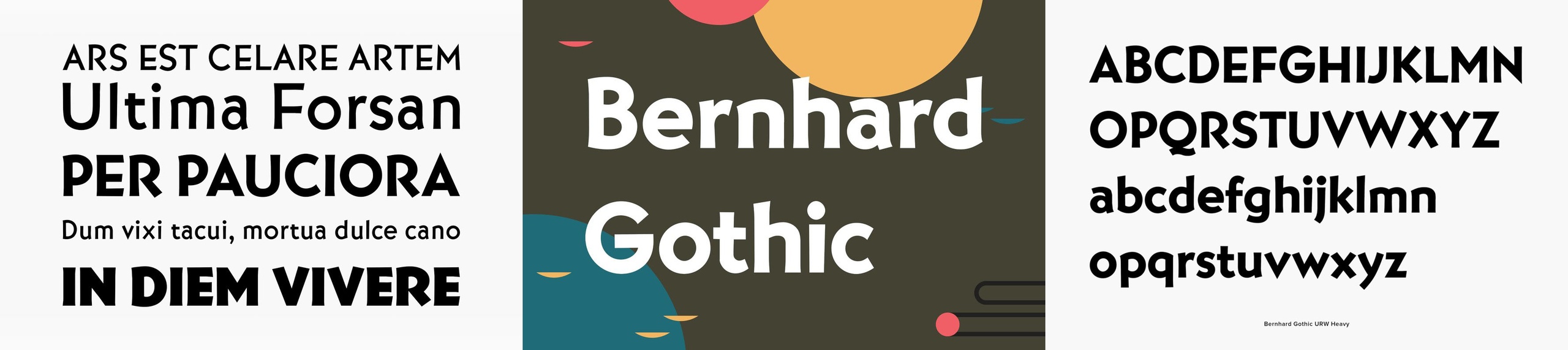
Bernhard Gothic Font
Bernhard Gothic Font is perfect for various design applications including classic architectural firm branding, prestigious law office materials, traditional academic institution signage, heritage financial services, distinguished library systems, established museum communications, institutional government materials, classical music venue displays, traditional publishing house identities, and timeless professional service providers. This distinguished typeface excels in projects requiring institutional authority and classical sophistication that communicates established credibility and enduring professional excellence.
What makes Bernhard Gothic Font so exciting is its masterful embodiment of institutional gravitas and classical authority through letterforms that suggest carved stone inscriptions and the enduring strength of established institutions. The font features strong geometric construction with subtle humanist influences, refined proportions that communicate both authority and accessibility, and distinctive character details that reflect the craftsmanship and attention to detail that defines institutional excellence. Its distinctive classical character and professional sophistication make it perfect for established organizations seeking to communicate tradition, reliability, and the kind of institutional credibility that builds lasting trust and respect.
Bernhard Gothic Font family includes comprehensive weight options and classical variations that enhance its versatility for different institutional applications. Each style maintains the font's signature authoritative character while providing clear hierarchy options for complex professional communications. The family also features extended character sets, institutional ligatures, and professional symbols that ensure optimal performance in formal academic and legal contexts.
Whether you're developing institutional brands, professional services, or classical communications, Bernhard Gothic Font Free Download provides authoritative typography that establishes immediate credibility and celebrates the enduring values of institutional excellence and professional tradition. This typeface transforms routine communications into distinguished statements that reflect organizational maturity and professional competence. The font's classical appeal makes it particularly effective for educational institutions, legal practices, and established professional services targeting audiences who value tradition, expertise, and institutional reliability.
Bernhard Gothic Font stands out through its intelligent balance of classical authority with contemporary functionality that ensures lasting relevance across changing design trends. Its carefully refined institutional proportions and authoritative details guarantee exceptional performance in demanding professional environments, while its distinguished character adds credibility without overwhelming content. From comprehensive institutional branding to formal academic publications, this font provides designers with tools to create communications that celebrate institutional excellence and demonstrate sophisticated understanding of classical professional typography through distinguished, authority-inspiring letterforms.